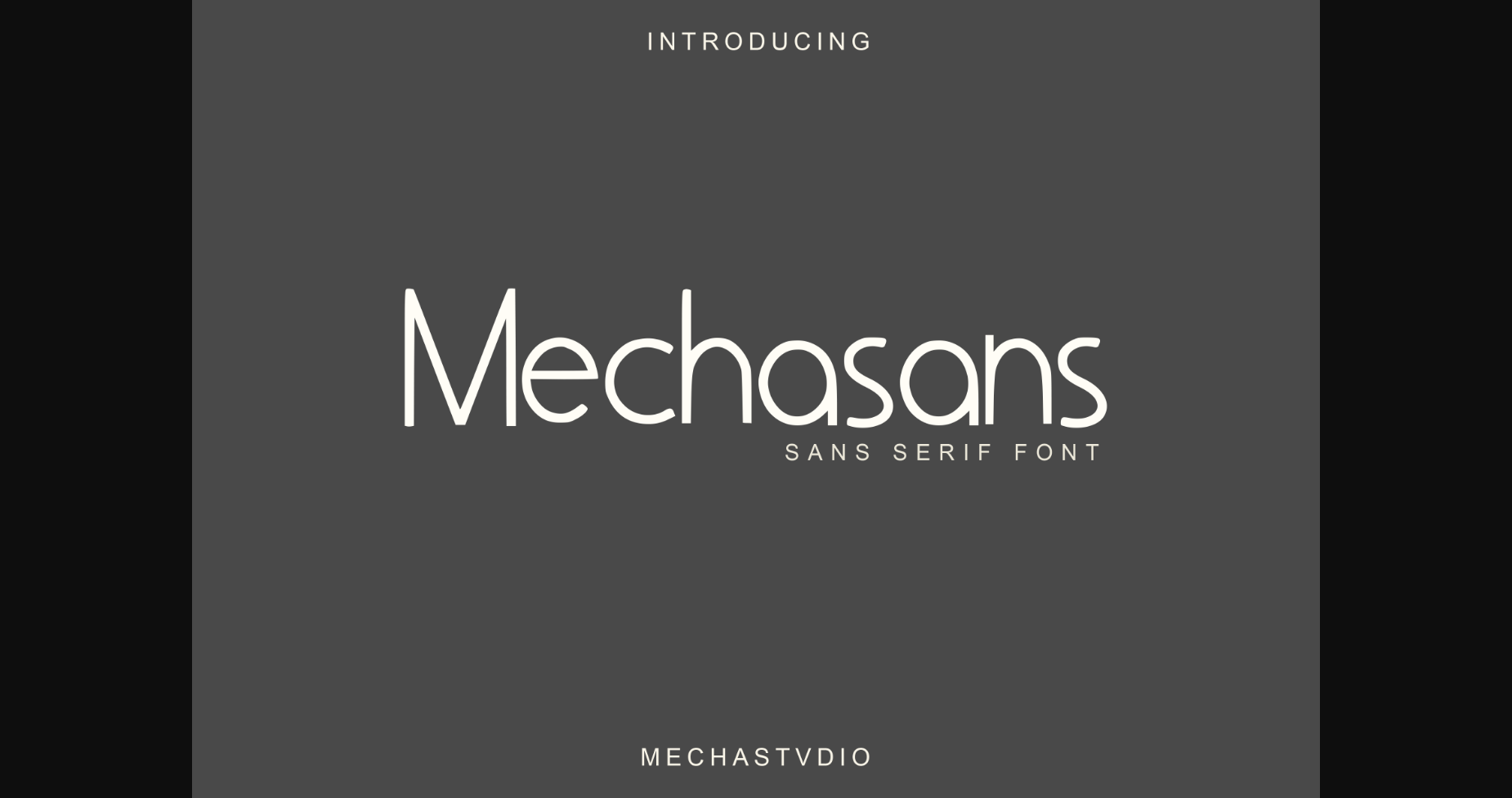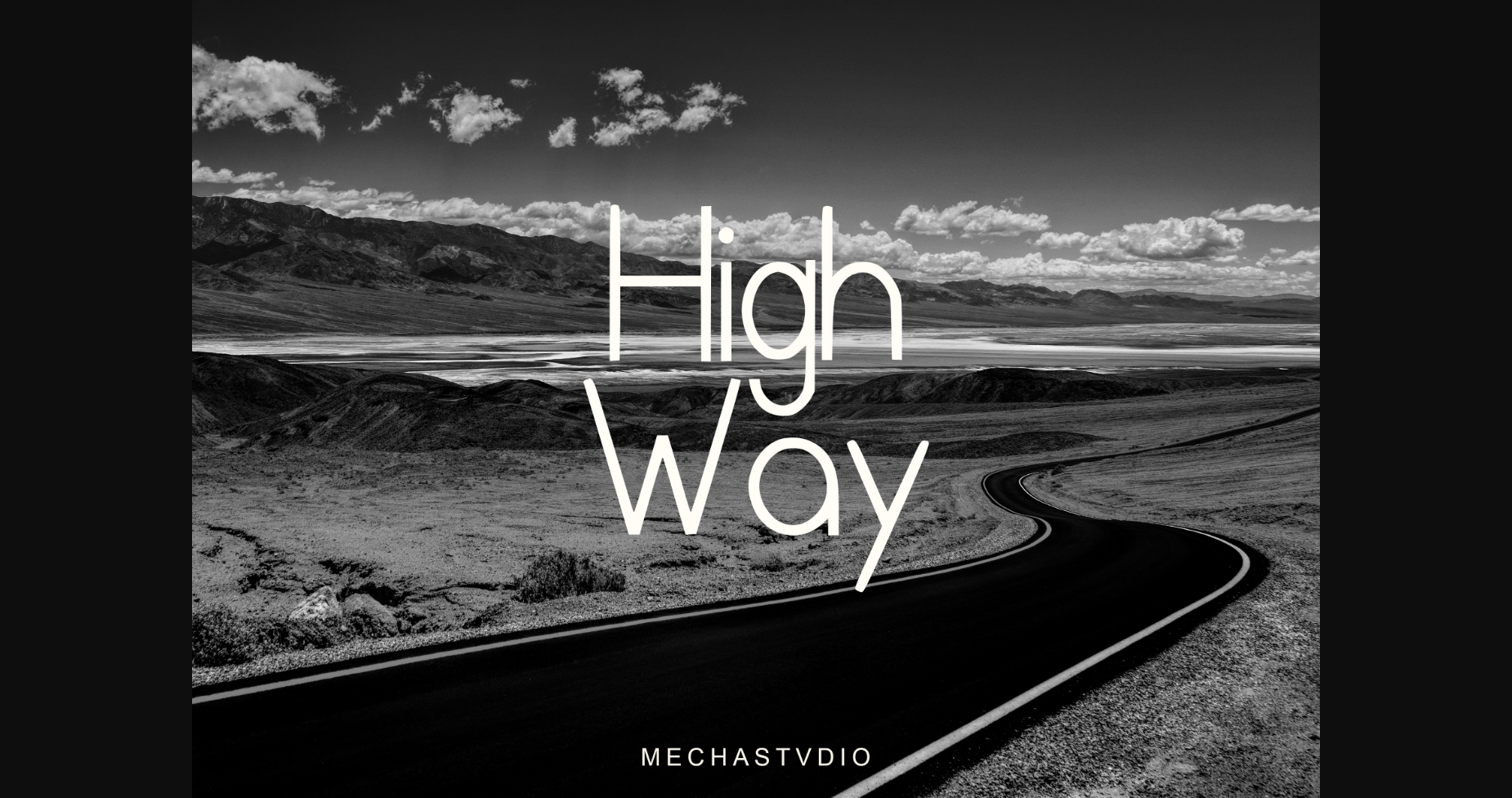
Mechasans Font
About Mechasans Font
Mechasans is a simple, cool, and minimalist sans serif font. Its unique style is perfect for all your projects as it has the potential to transform them into a true standout.